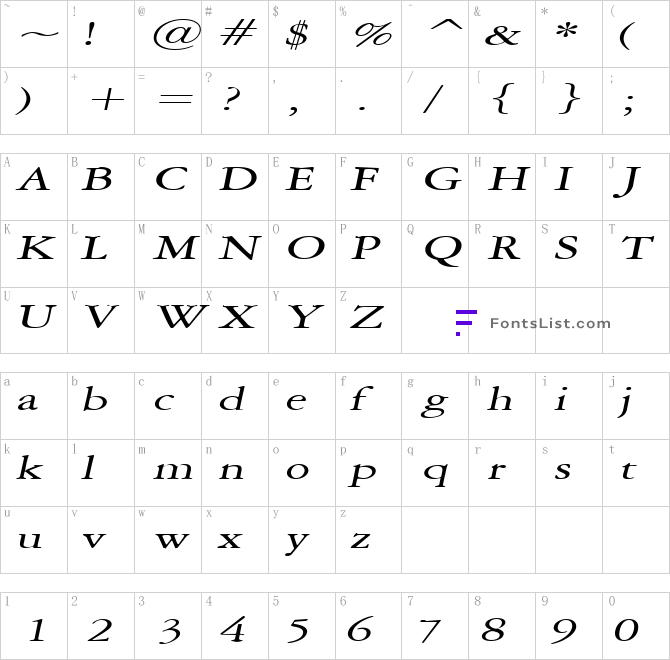
- Font Name:Amery Extended
- Full Name:Amery Extended Italic
Amery-Extended-Italic.ttf is a very beautiful artistic font, Amery-Extended-Italic.ttf is widely used in the design and printing of various books and pictures,Amery-Extended-Italic.ttf has a strong visual impact,Amery-Extended-Italic.ttf is a commonly used font in newspapers, magazines and books, and is used in posters, e-commerce Poster design, store design, logo design, font design and other fields.Amery-Extended-Italic.